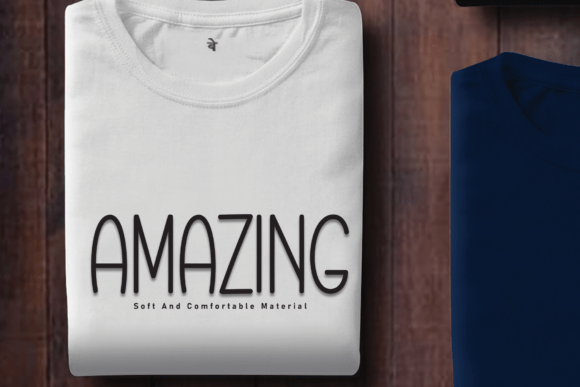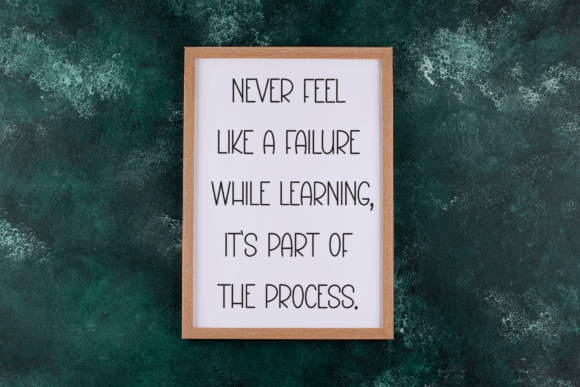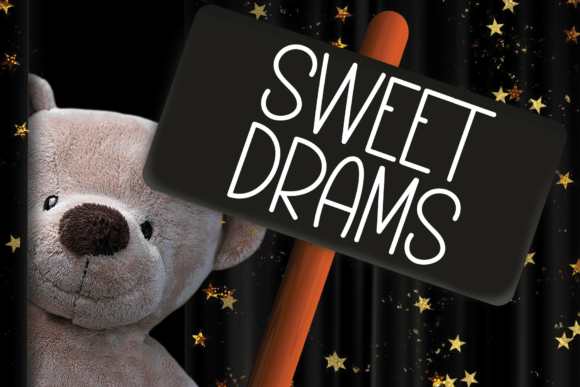
Blackboard Font
Blackboard is a charming and casual handmade font that captures the nostalgic feel of classroom doodles and chalkboard writing. Its playful curves and quirky style make it perfect for school-themed designs, kids’ crafts, educational posters, and fun branding projects.